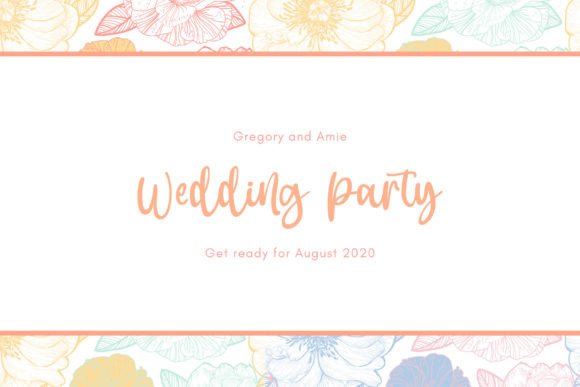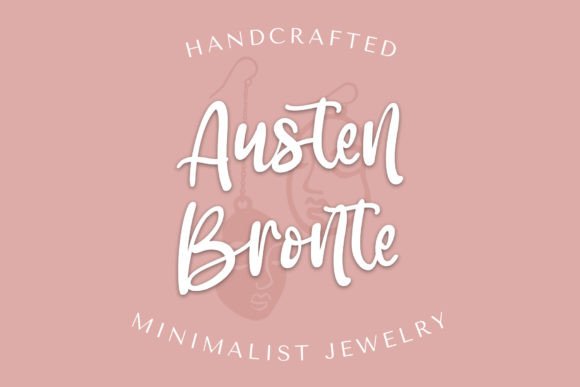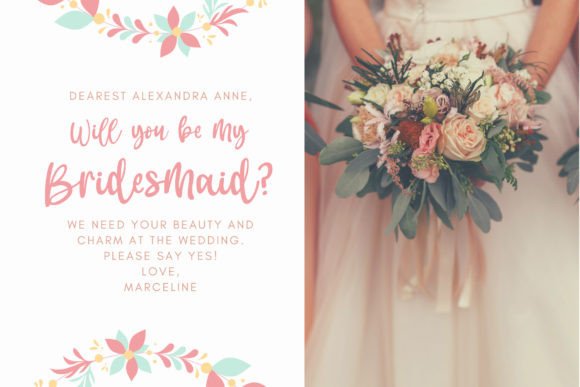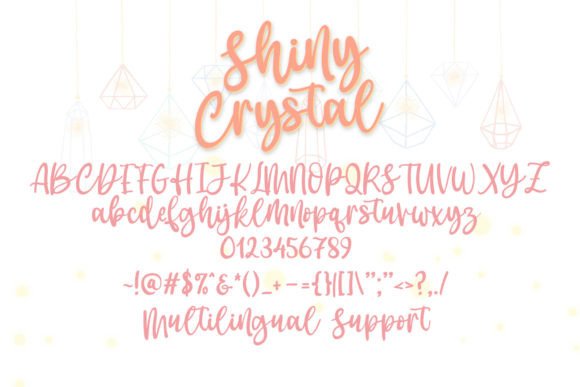
Shiny Crystal Font
About Shiny Crystal Font
Introducing the “Shiny Crystal Handwritten Script Font,” a cute and lovely feminine font crafted to add a touch of charm to your craft projects. With its delightful and elegant script style, this font is designed to make your designs more gorgeous, perfect for a variety of creative endeavors.
The charm of “Shiny Crystal” lies in its handwritten script, exuding a feminine and playful vibe. Whether you’re working on craft projects, invitations, greetings, or any design that calls for a cute and lovely touch, this font is your go-to choice.
Immerse yourself in the cuteness of “Shiny Crystal,” and you’ll discover its ability to enhance the visual appeal of your designs. Let this font be the key element that brings a delightful and feminine flair to your craft projects, making them more eye-catching and engaging.
In summary, “Shiny Crystal” is not just a font; it’s a design asset that adds cuteness and loveliness to your creative endeavors. Elevate your craft projects and various designs with the feminine and charming script style of “Shiny Crystal.” Make your designs shine with the adorable touch of this handwritten font.